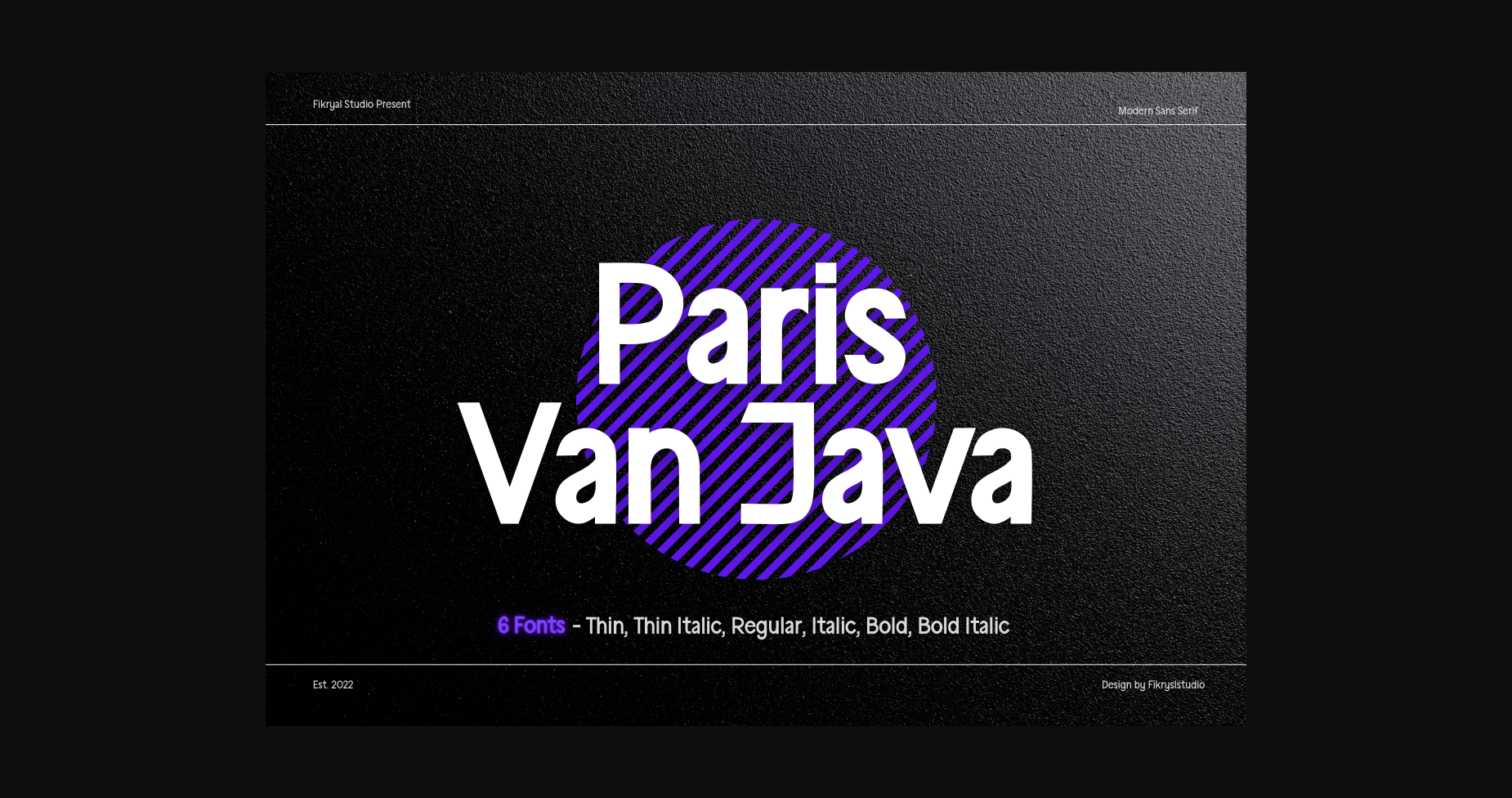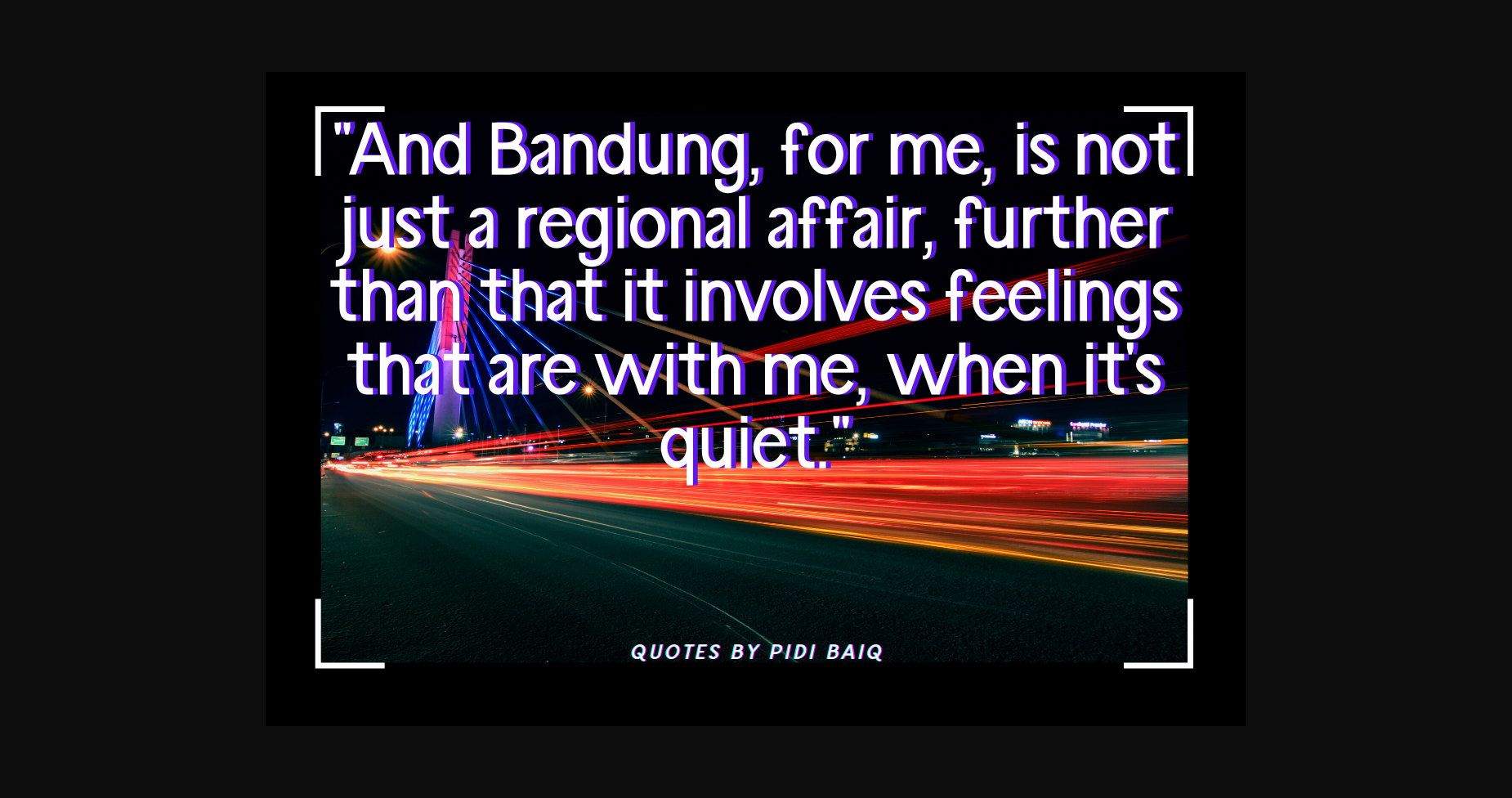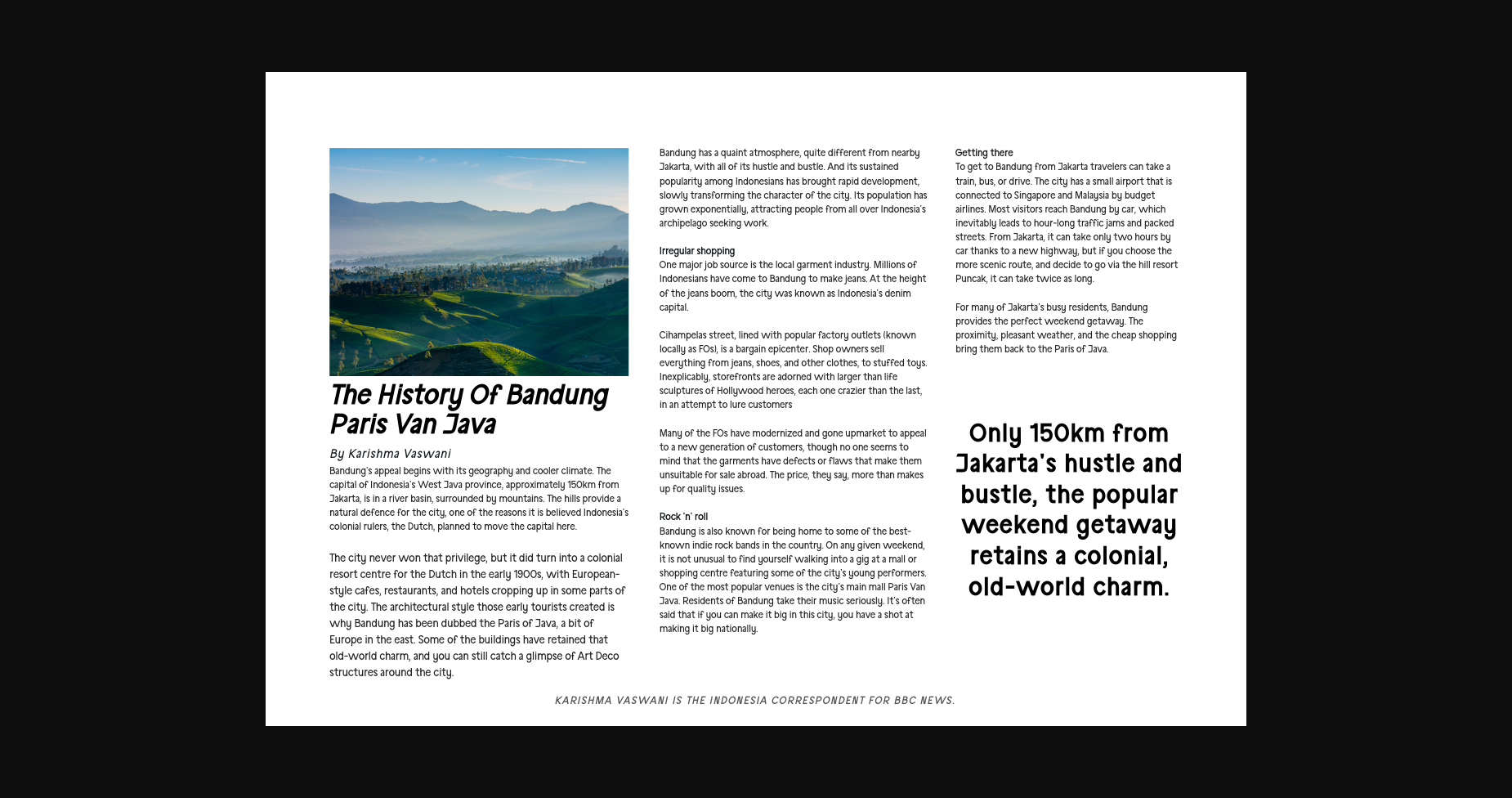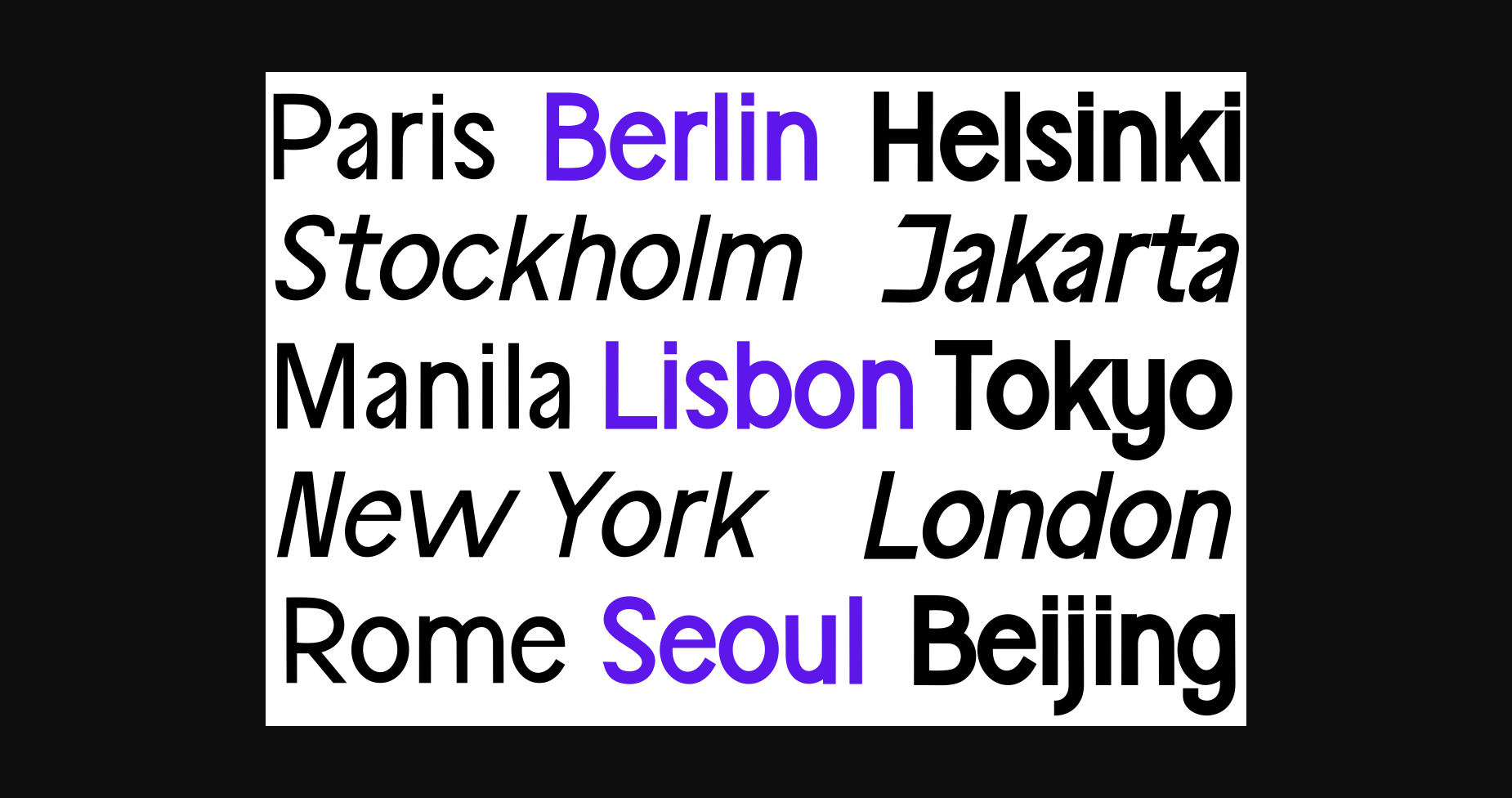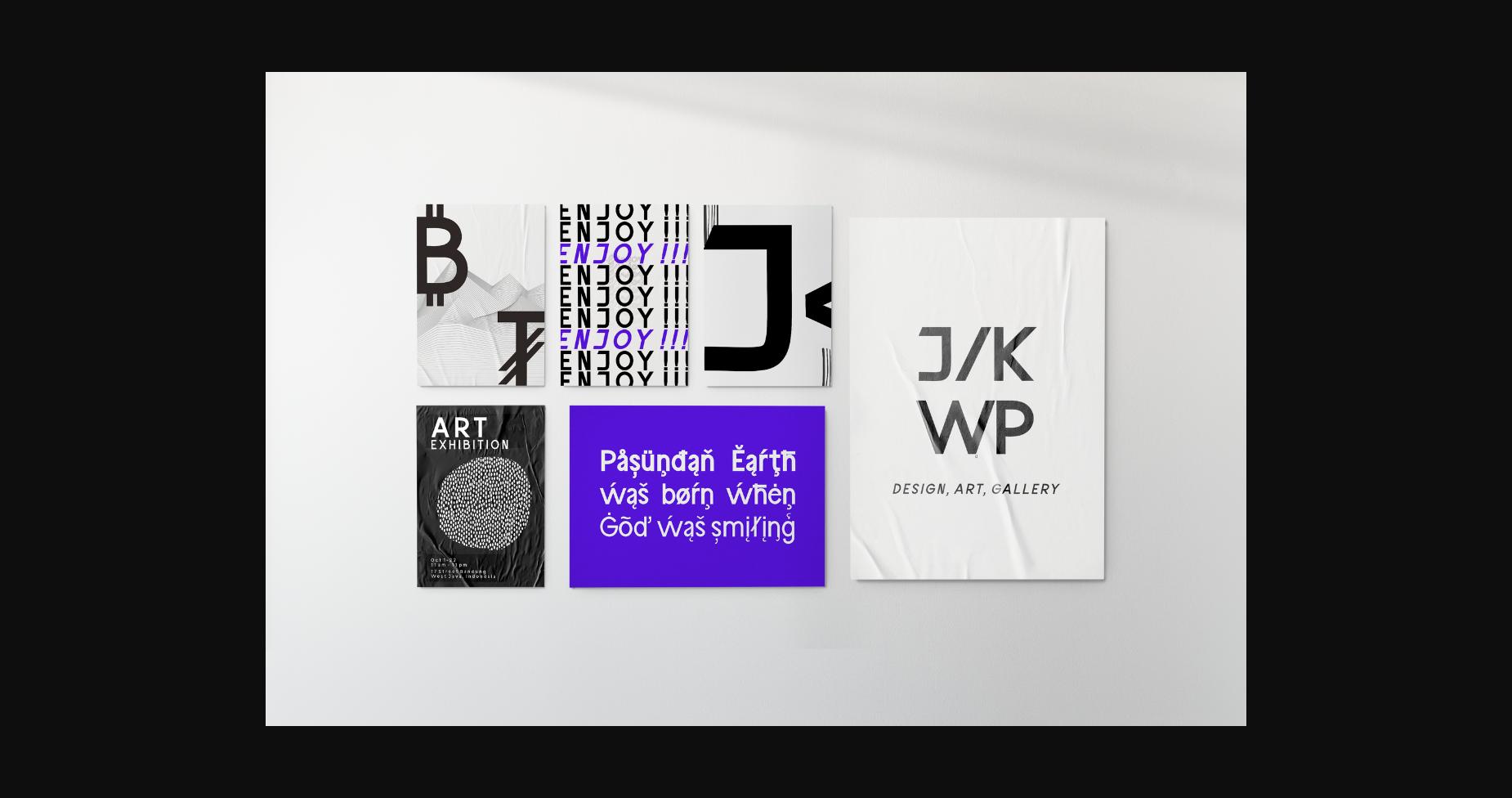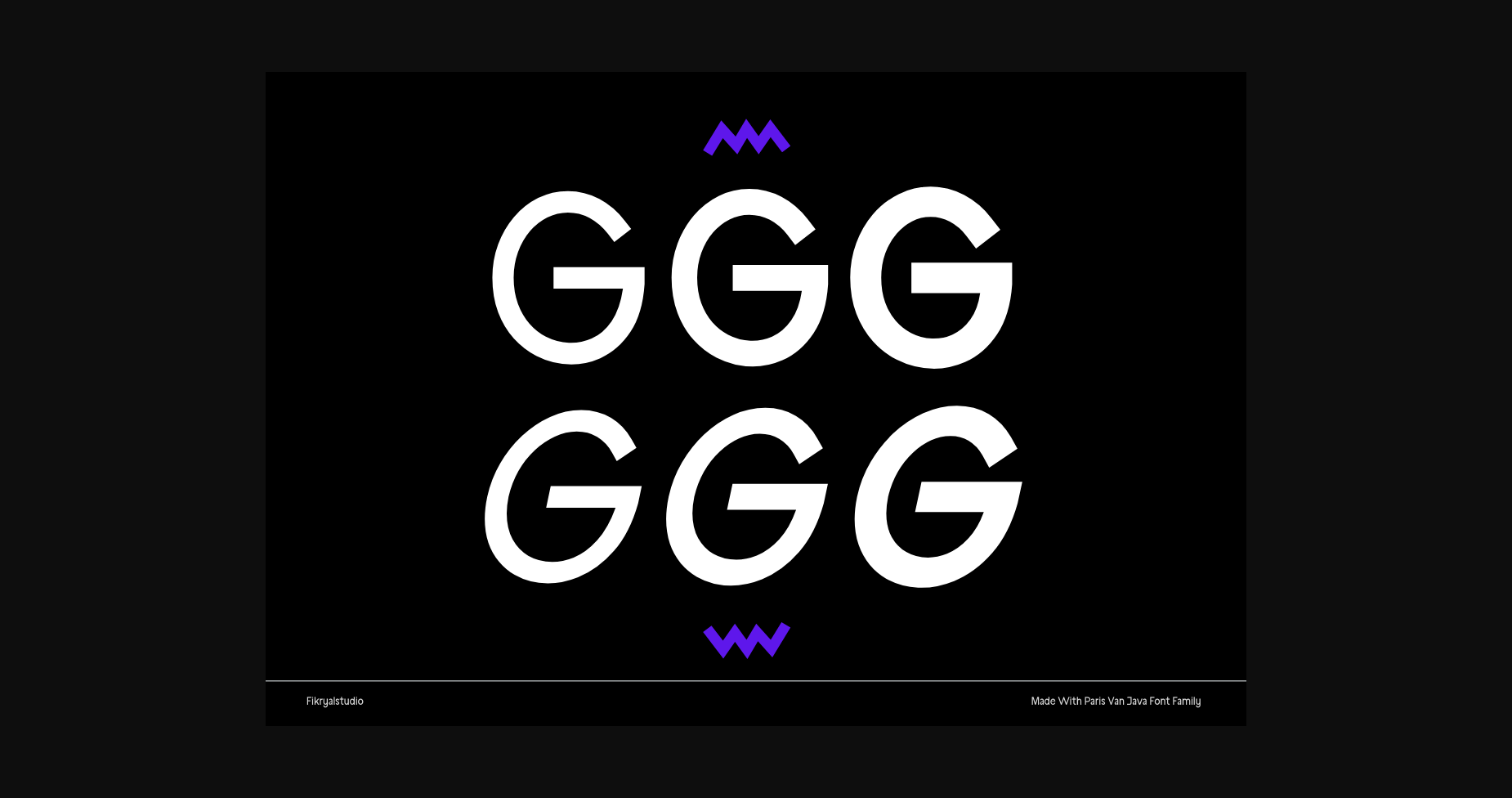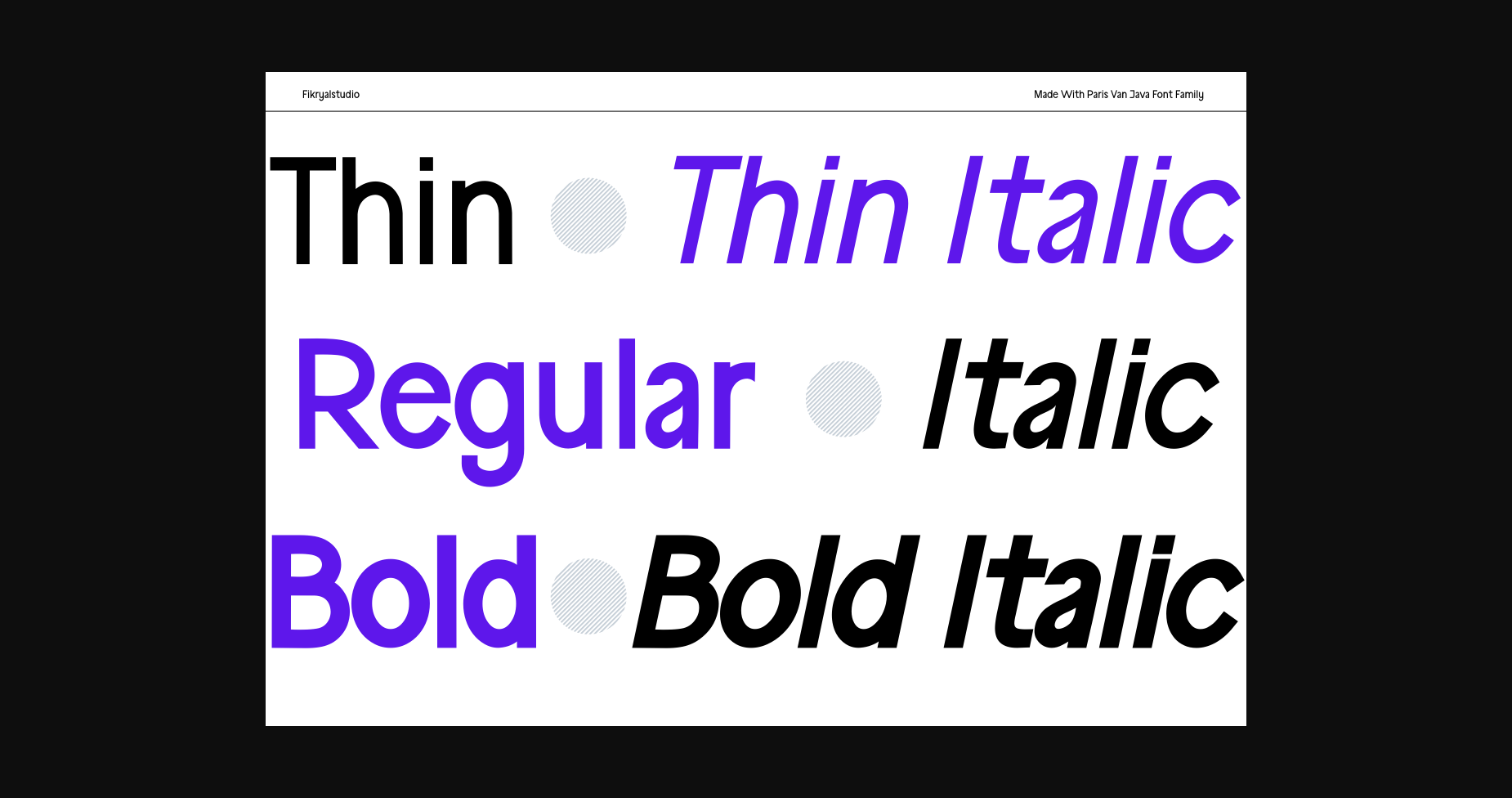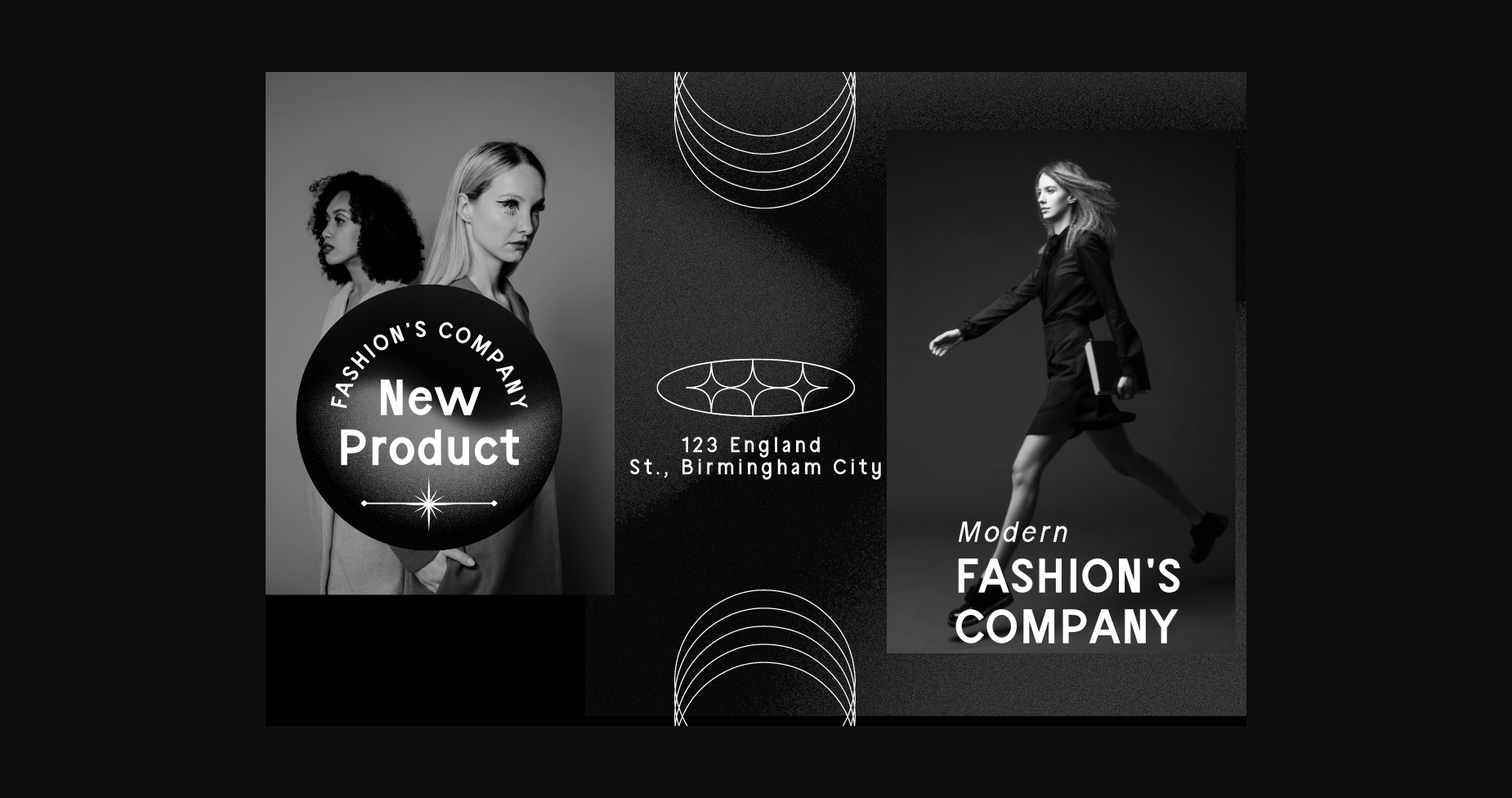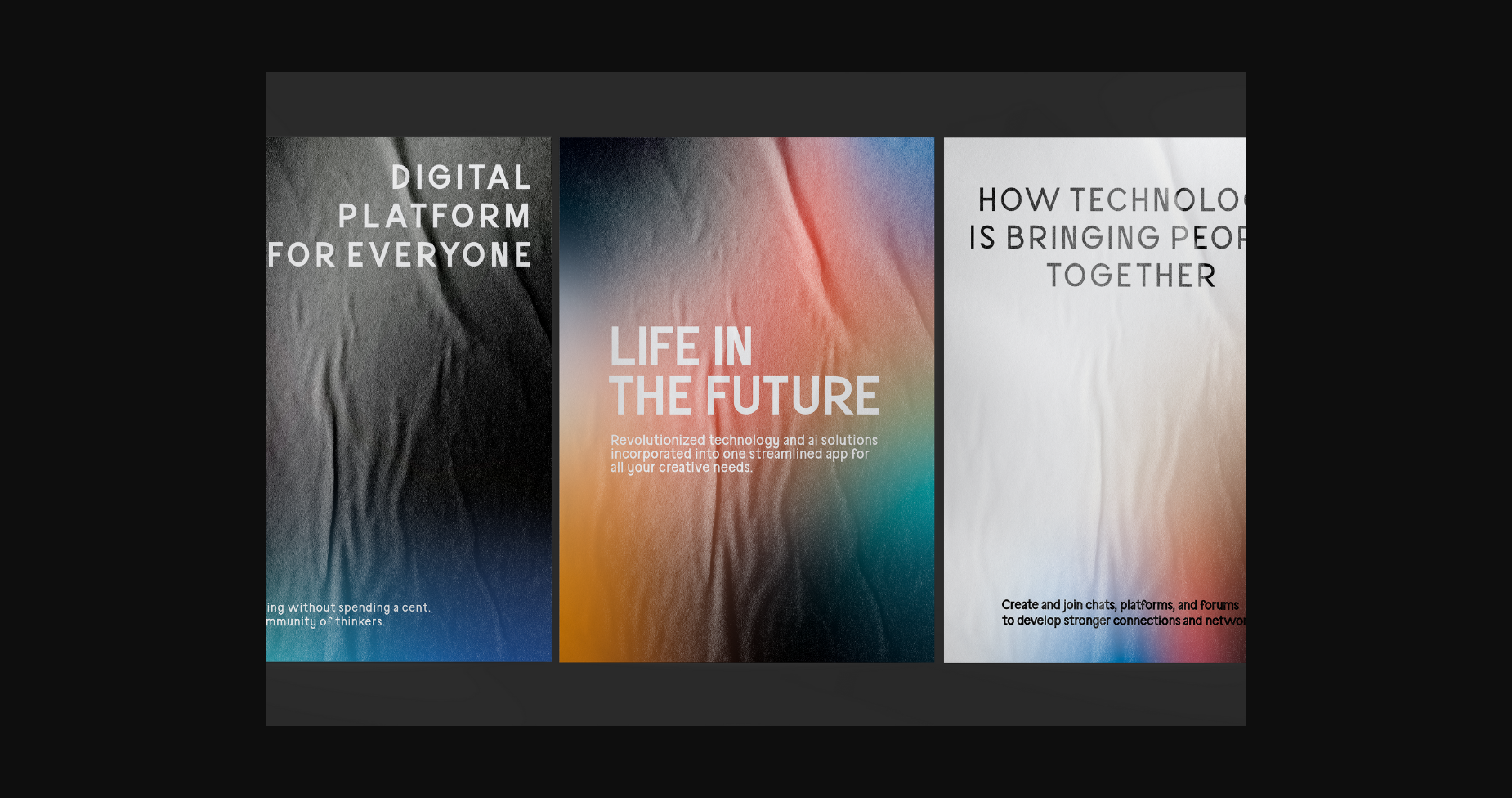
Paris Van Java Family Font
About Paris Van Java Family Font
Introducing Paris Van Java sans serif font family. This font family is perfect for various design projects, including logos, branding, titles, social media posts, advertisements, product packaging, product designs, labels, photography, watermarks, special events, magazines, web designs, etc.